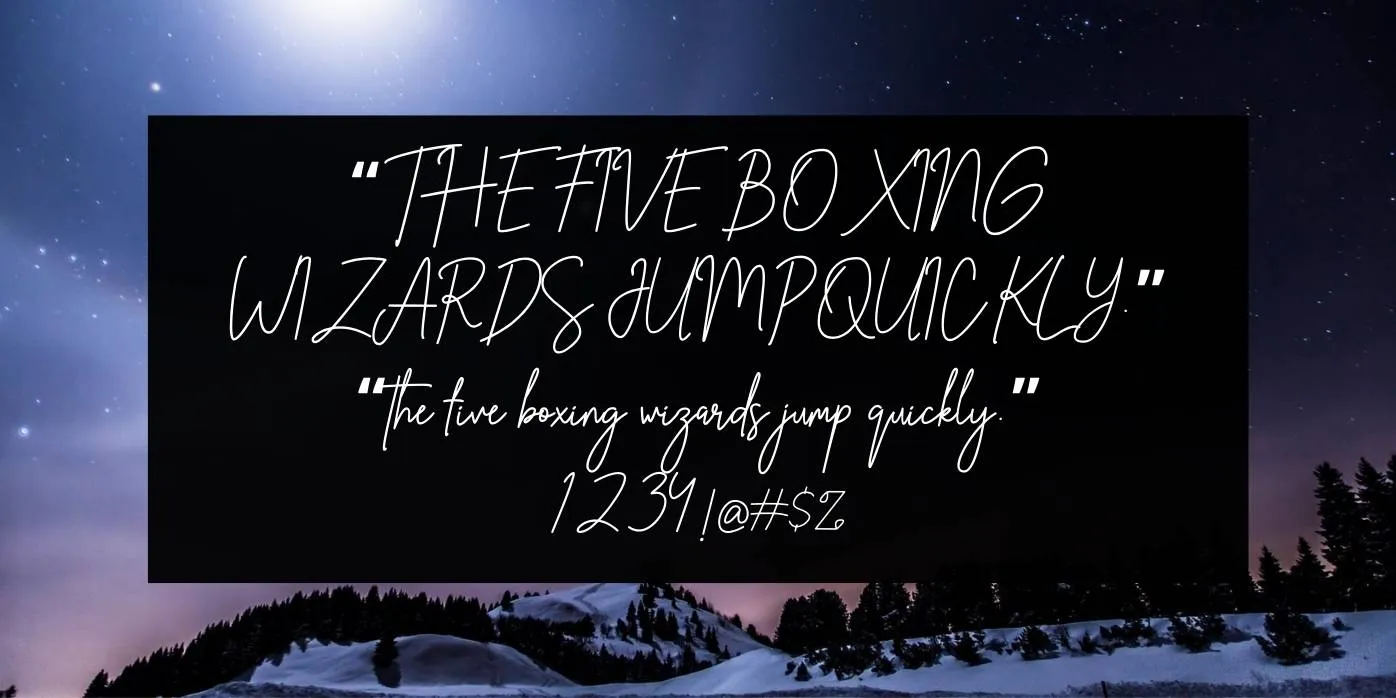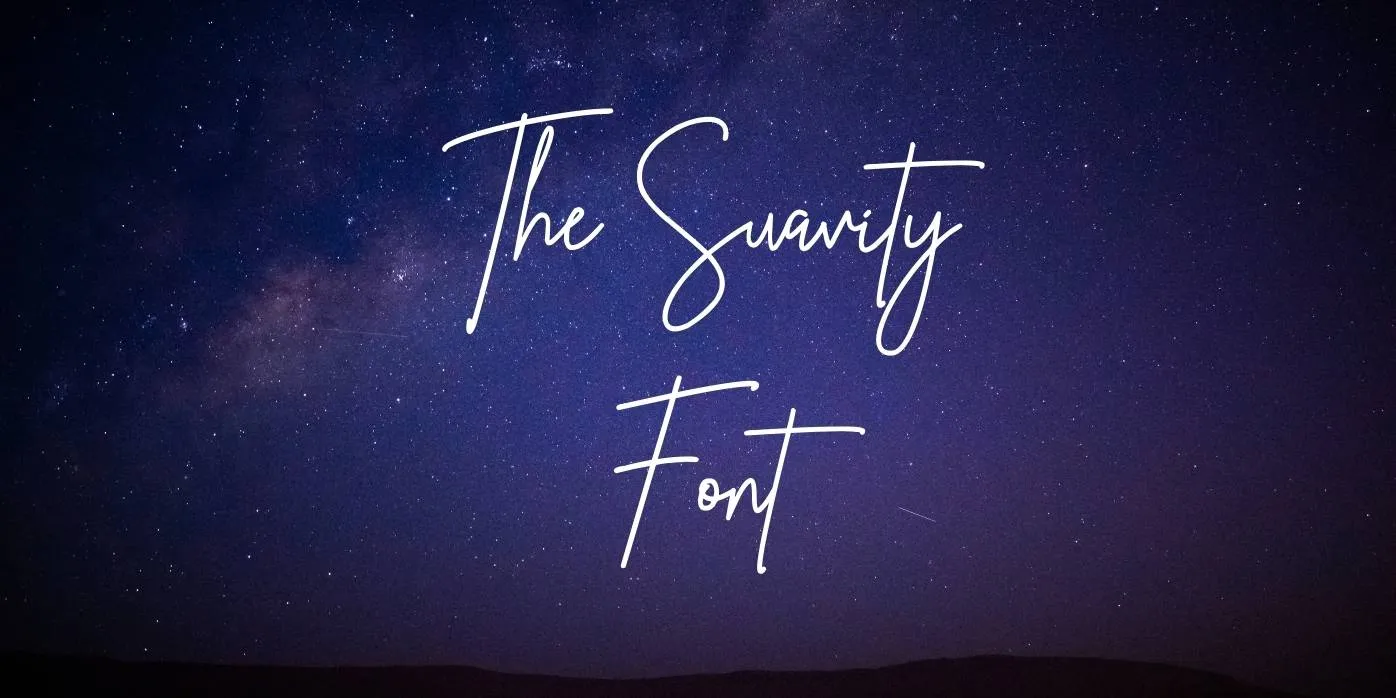
The Suavity Font
Bluestype Studio designed this typeface. The Suavity Font is a handwritten texture that has attractive, thin, stylish, and zig-zag characters. The typeface that is best for pairing with this typeface is honey bunny font. The pairing result will be a fantastic and attention-grabbing.